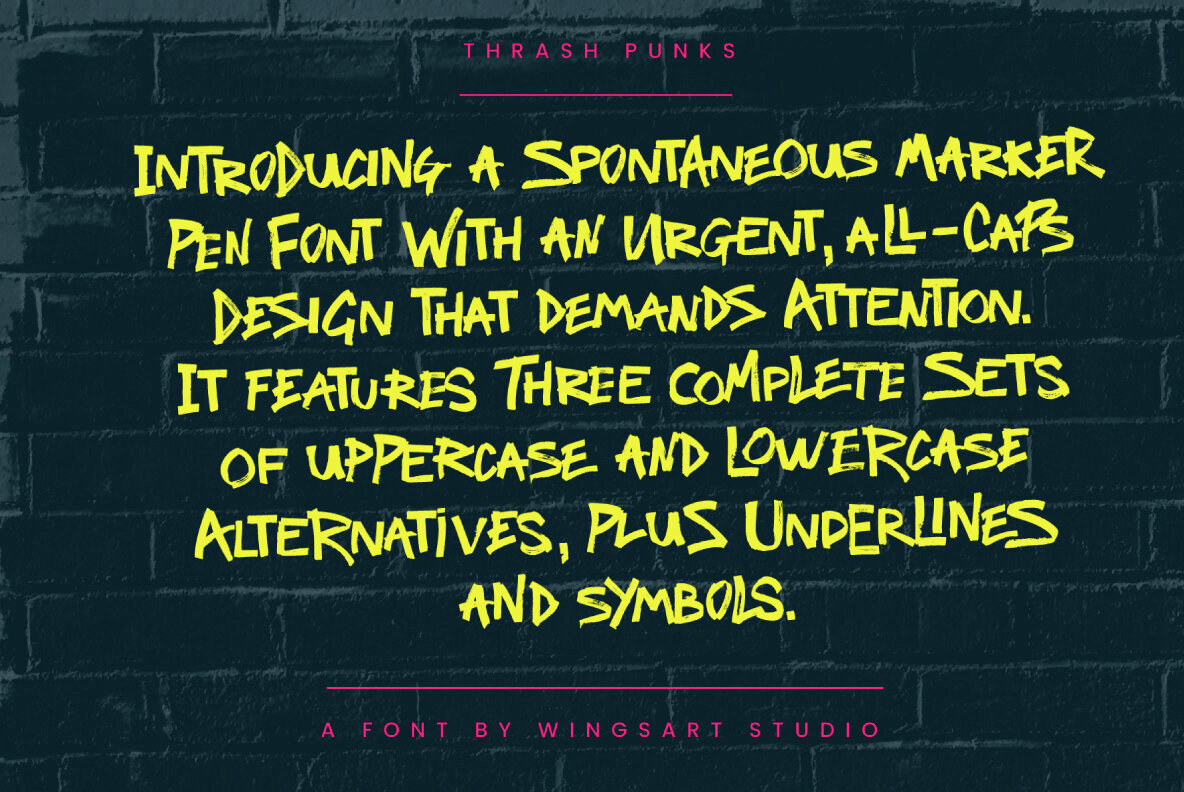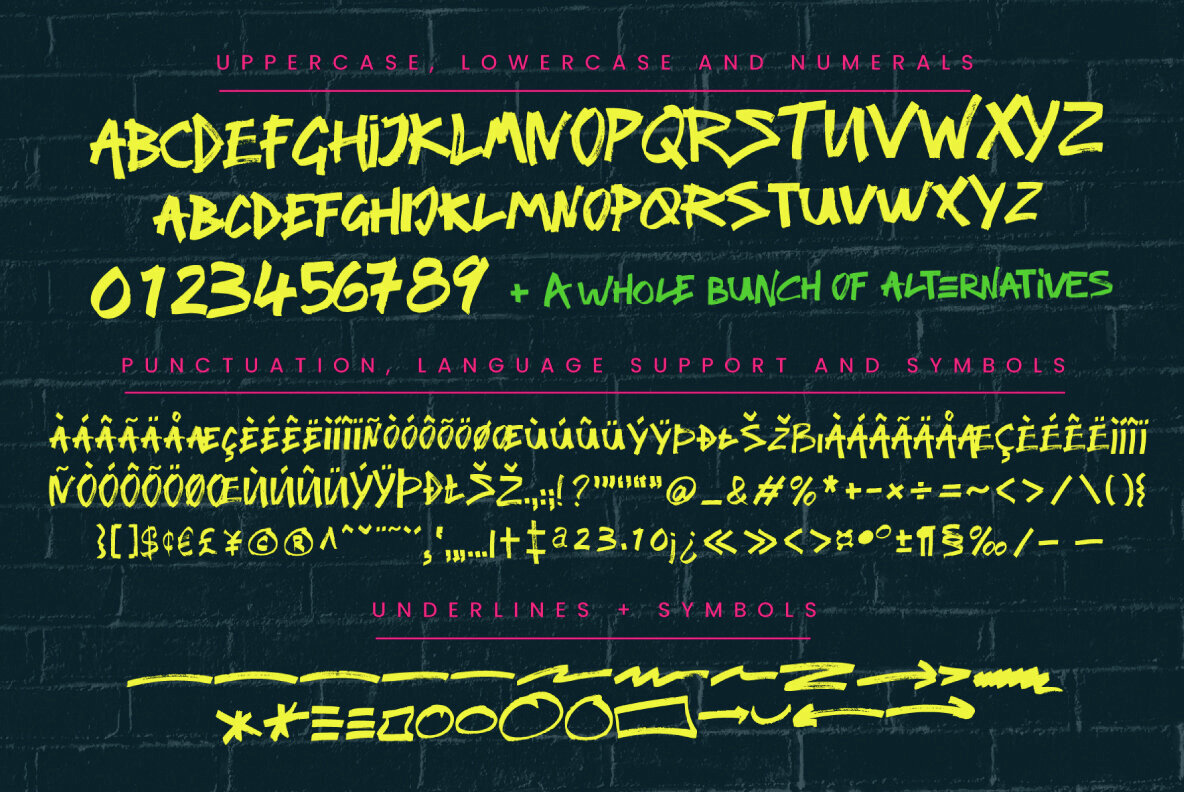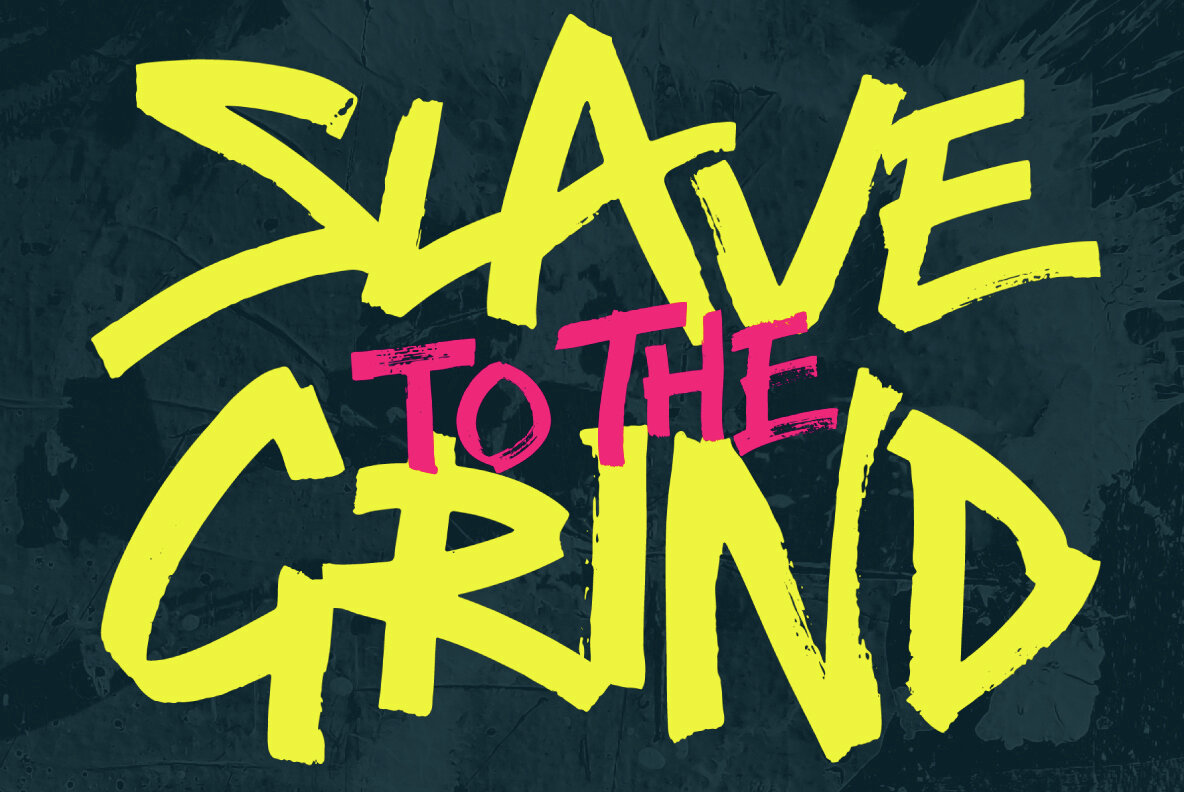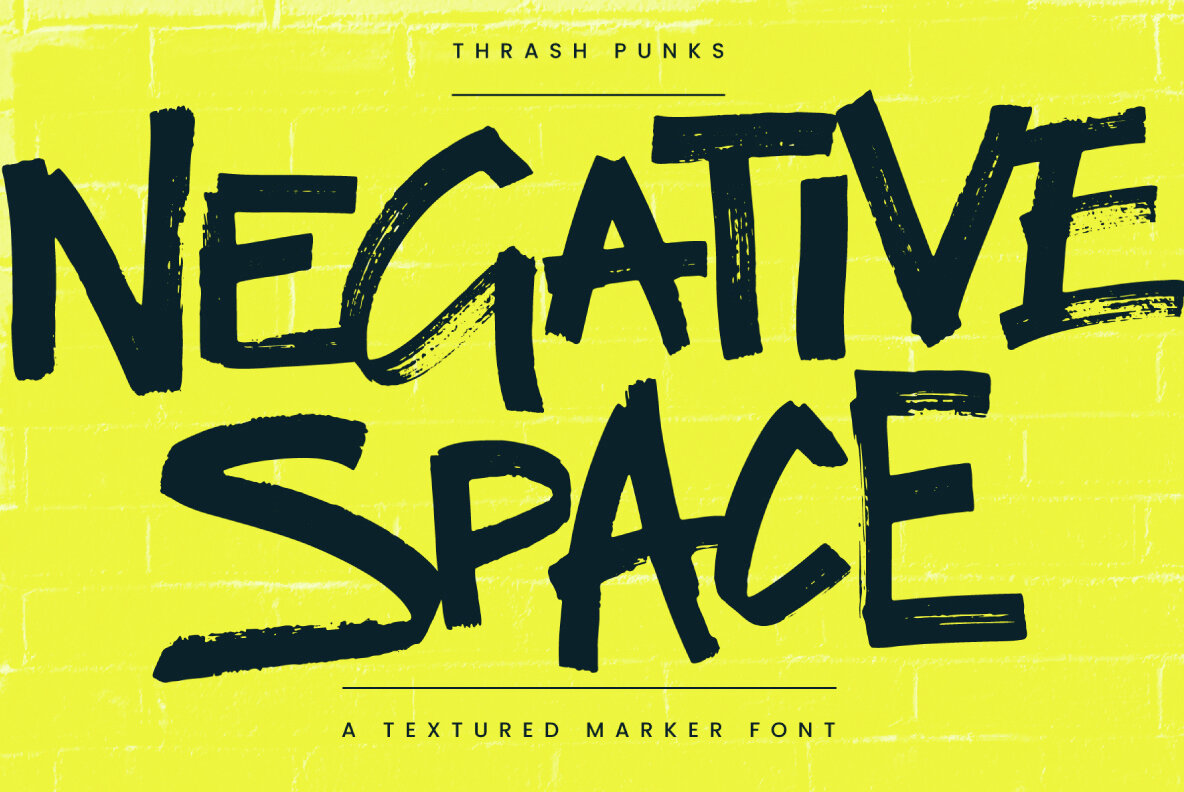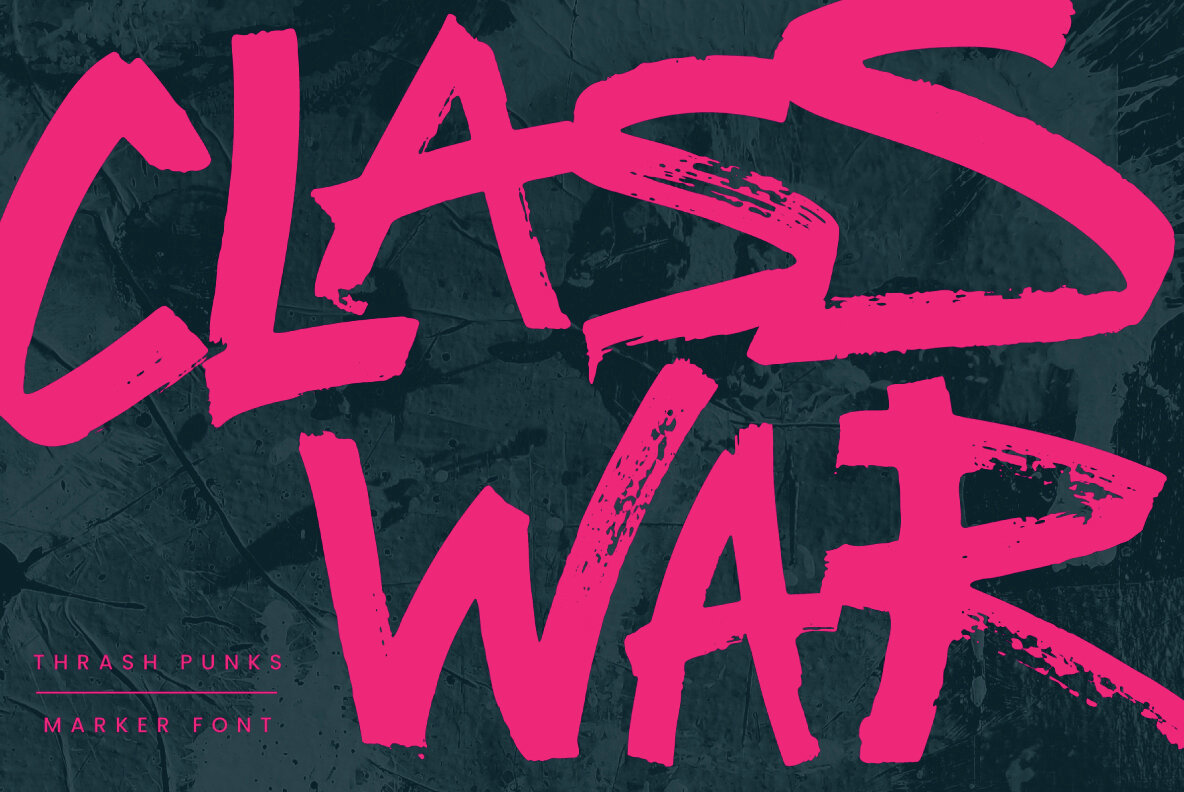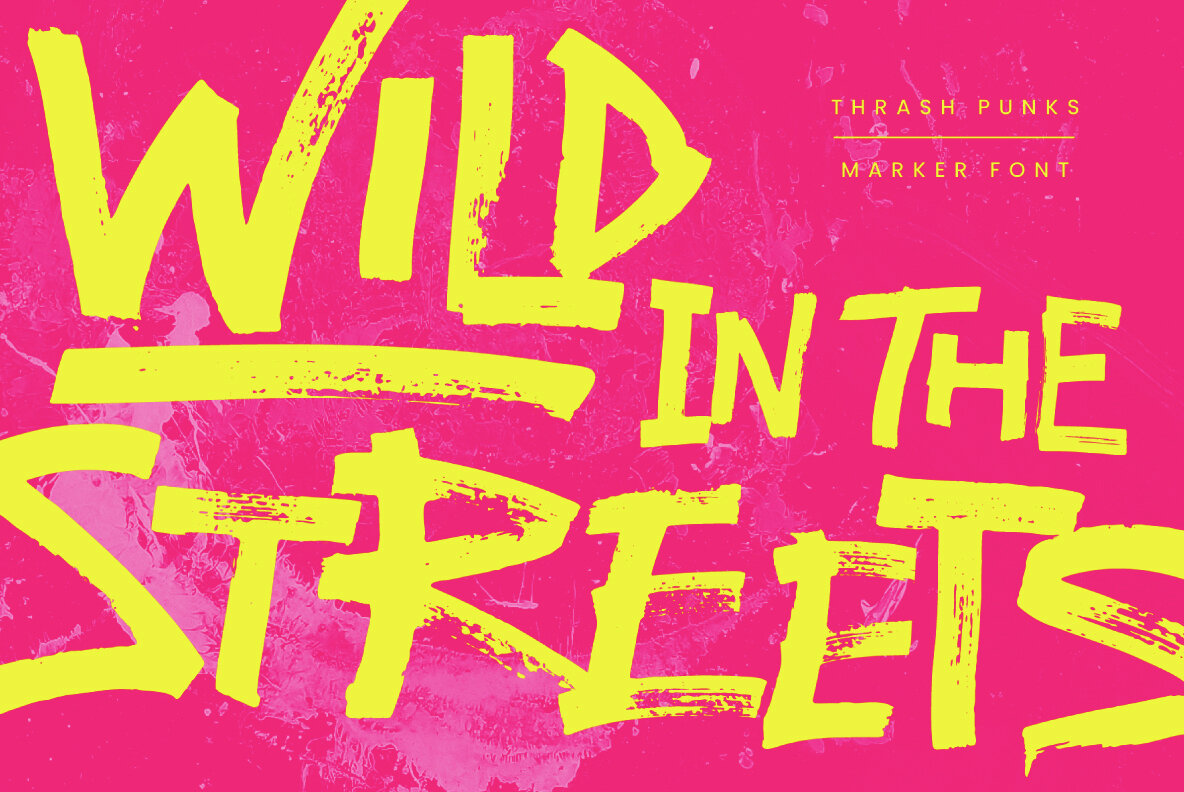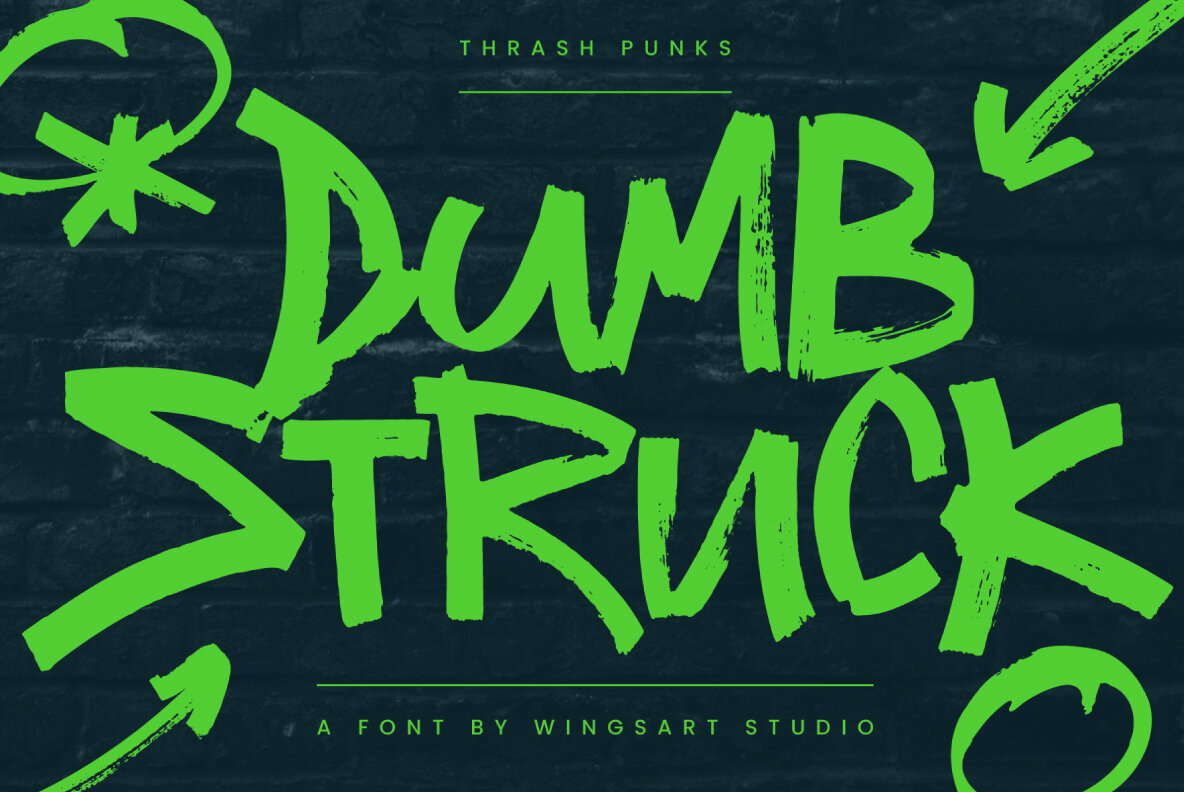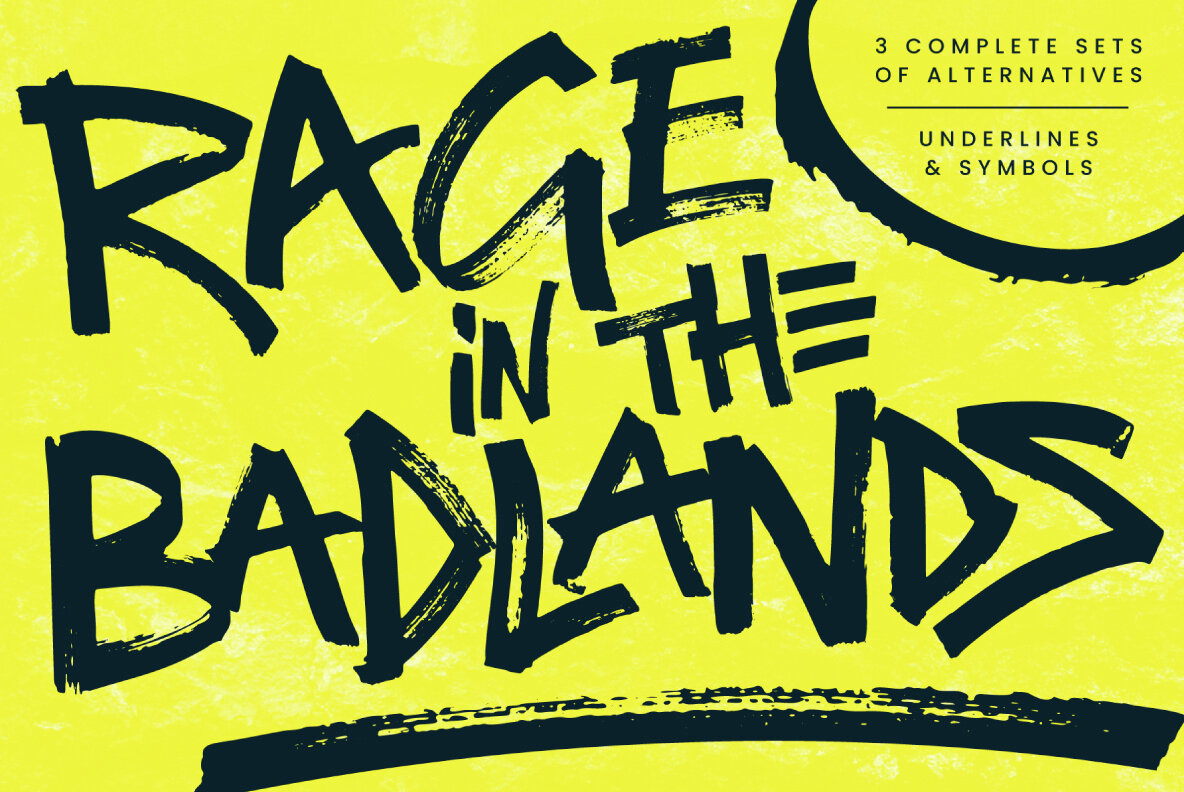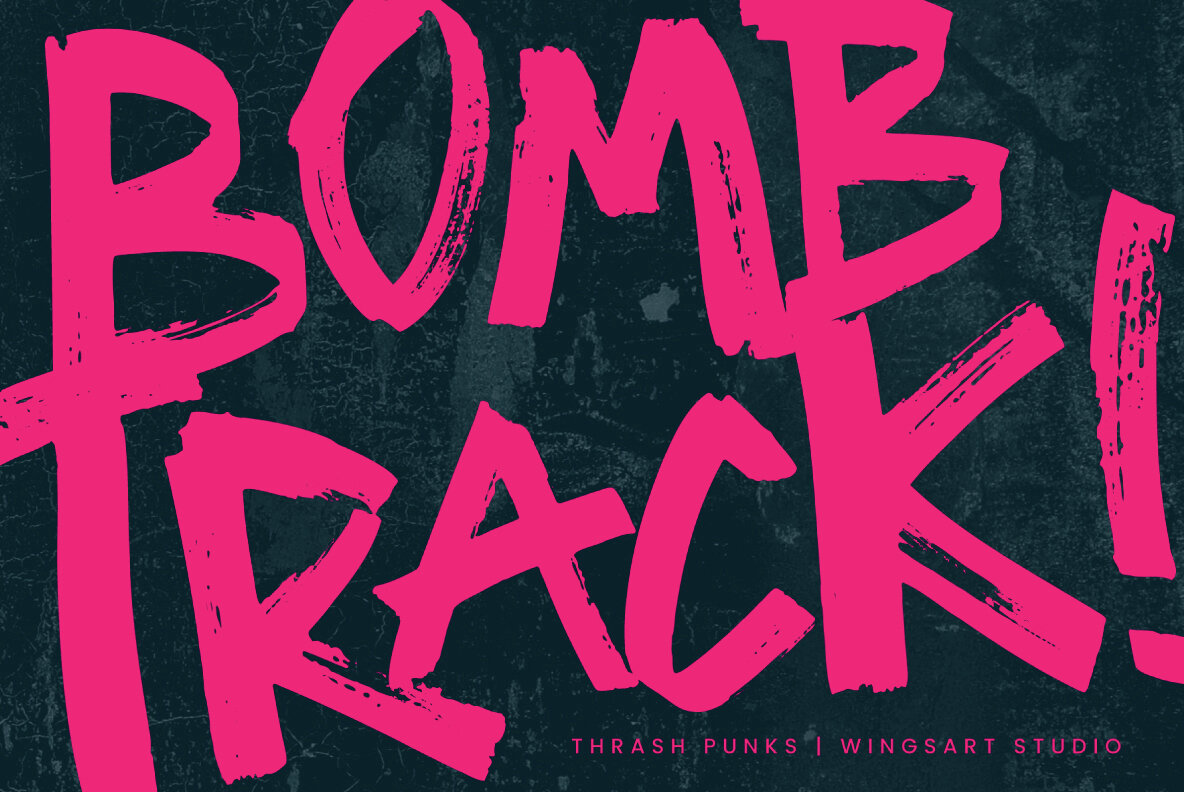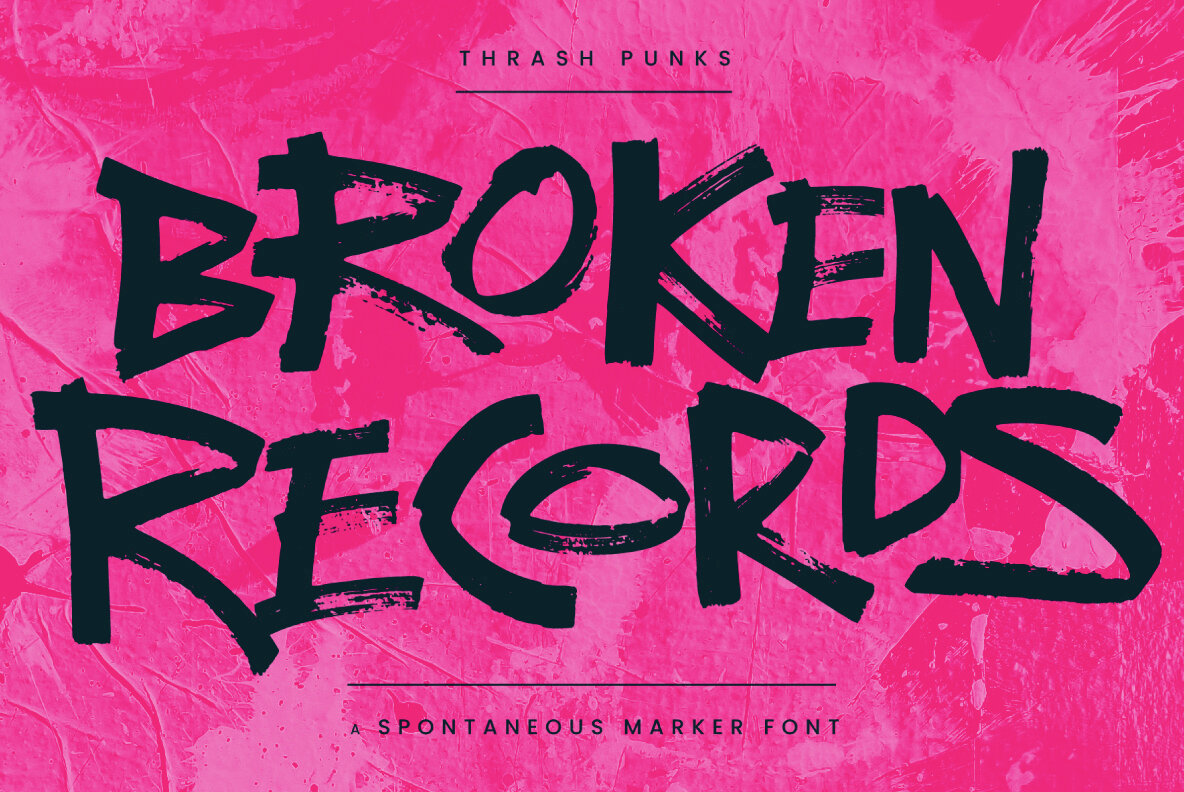
Thrash Punks Font
Introducing Thrash Punks, a spontaneous marker pen font with an urgent, all-caps design that demands attention. It features three complete sets of uppercase and lowercase alternatives, plus underlines and symbols. With influences ranging from graffiti tags, punk rock album covers and the protest march, Thrash Punks began in the black ink of an inch thick marker with letterforms motivated by speed and improvisation, resulting in a highly textured and aggressive typeface. It’s the perfect choice for bold design projects that need to maintain legibility while promoting an anti-establishment attitude. Great for packaging, retail point of sale, posters, titles and more! Thrash Punks starts with it’s Regular style and then adds three more sets of uppercase and lowercase alternatives for countless creative options. Numerals, punctuation, symbols and language support are also included, along with a further collection of underlines, symbols and shapes. For a strong handwritten look to any title or statement, accept no substitute. Enjoy! Contents: - Trash Punks: Regular - Alternatives 01 - Alternatives 02 - Alternatives 03 - Underlines and Symbols
Based near Bristol, UK, Christopher King is the designer behind Wingsart Studio, a creative practice specializing in hand-drawn lettering and bespoke typography for film and television. Acting as both a working portfolio and an independent font foundry, Wingsart Studio showcases King’s deep appreciation for mi...